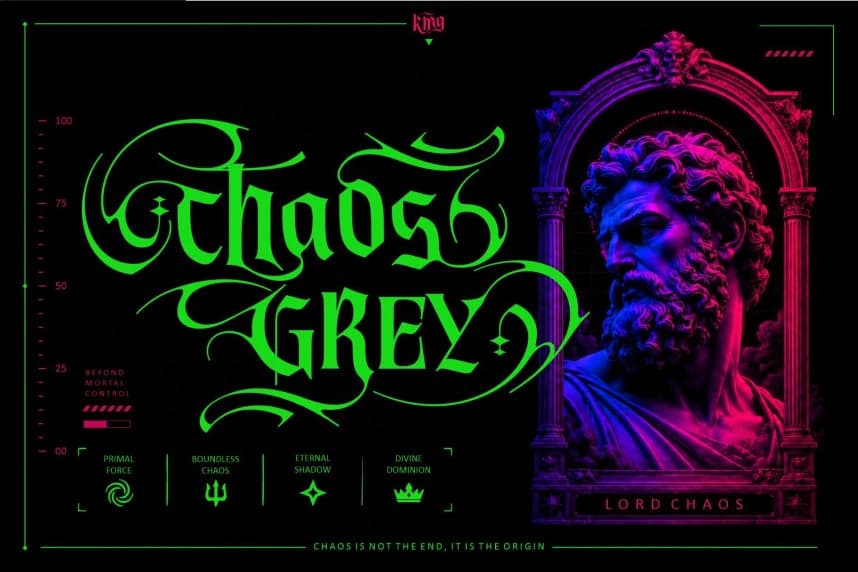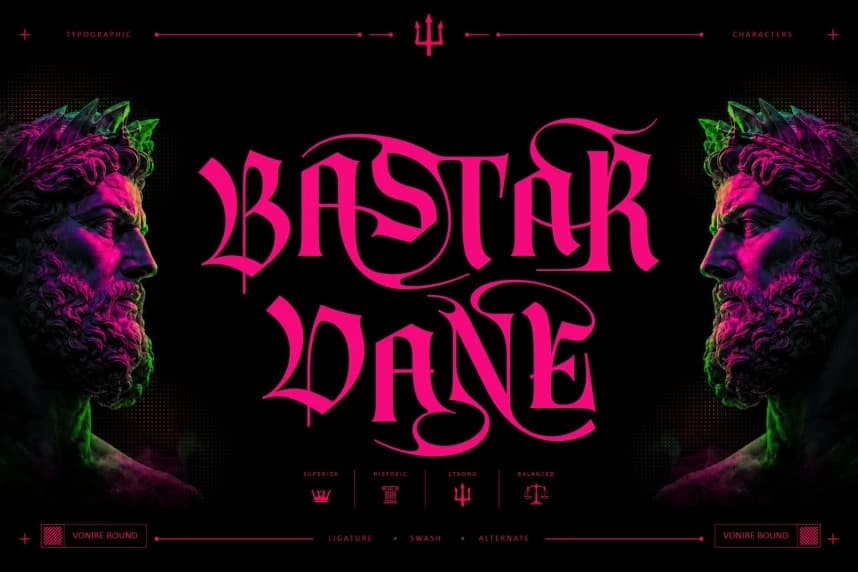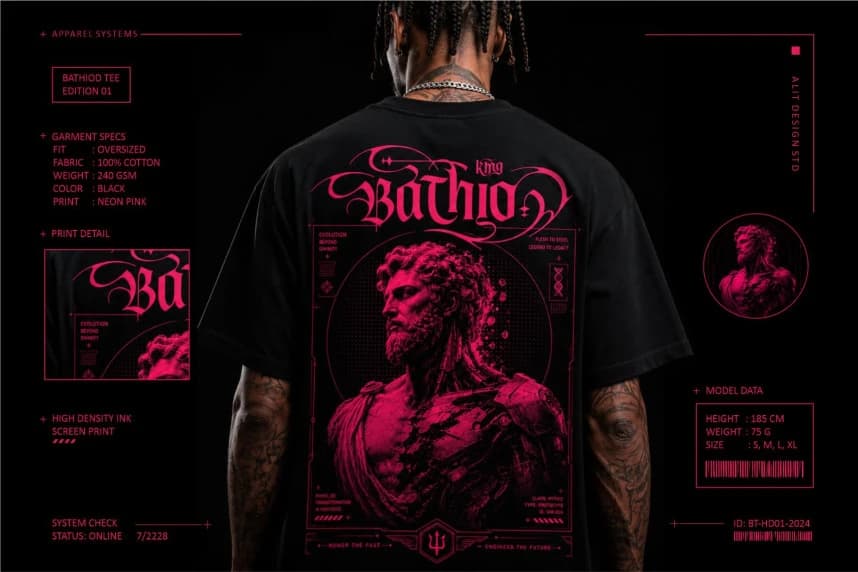
Vonire Bound Font, a high-impact display typeface that seamlessly bridges the gap between classical Greek mythology and futuristic cyberpunk energy. Vonire Bound is not just a font; it is a visual statement. Built with sharp, aggressive gothic structures